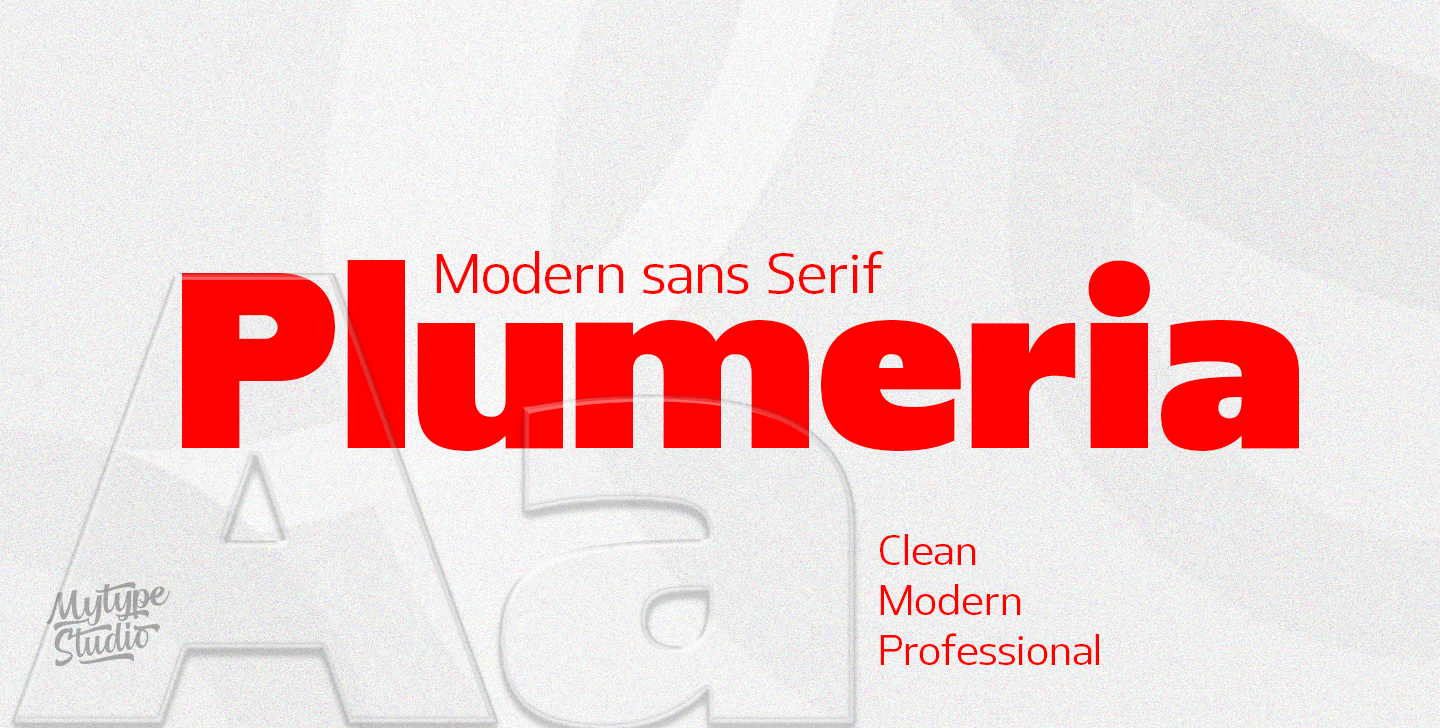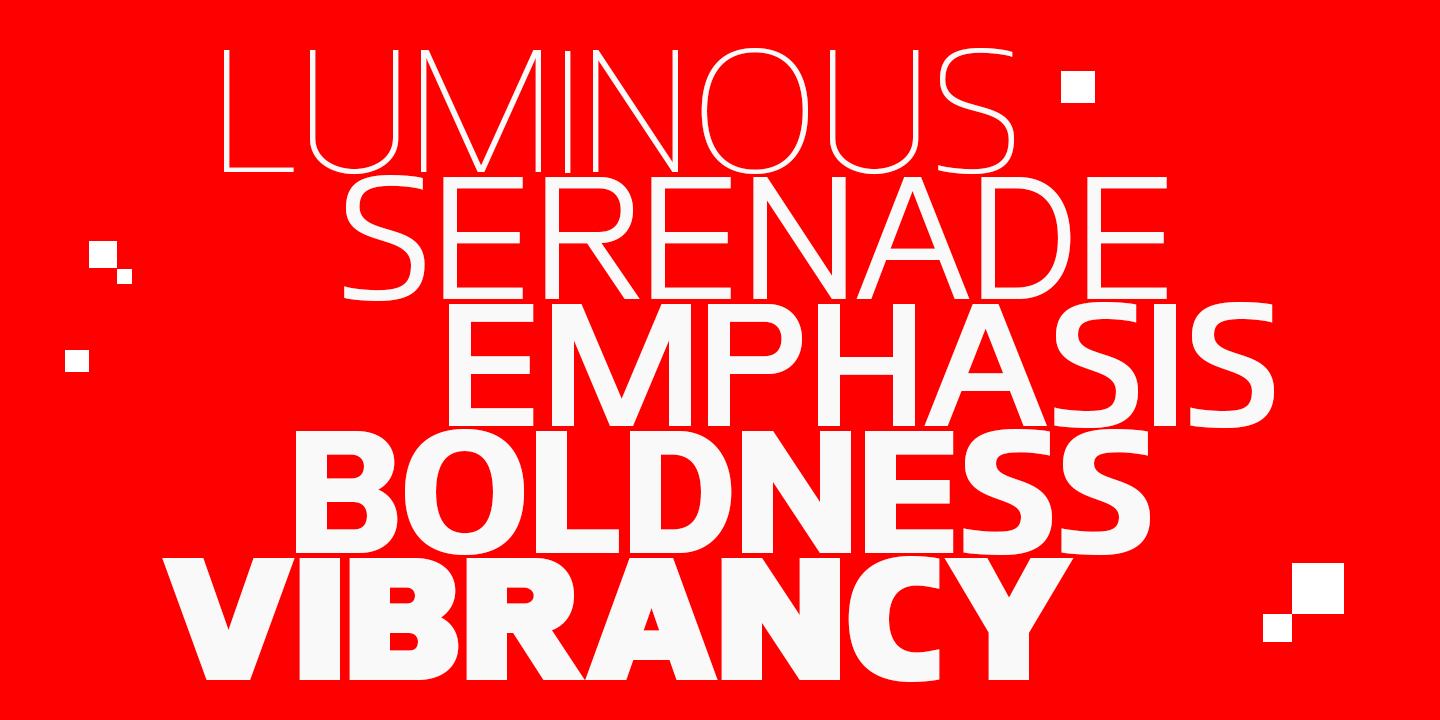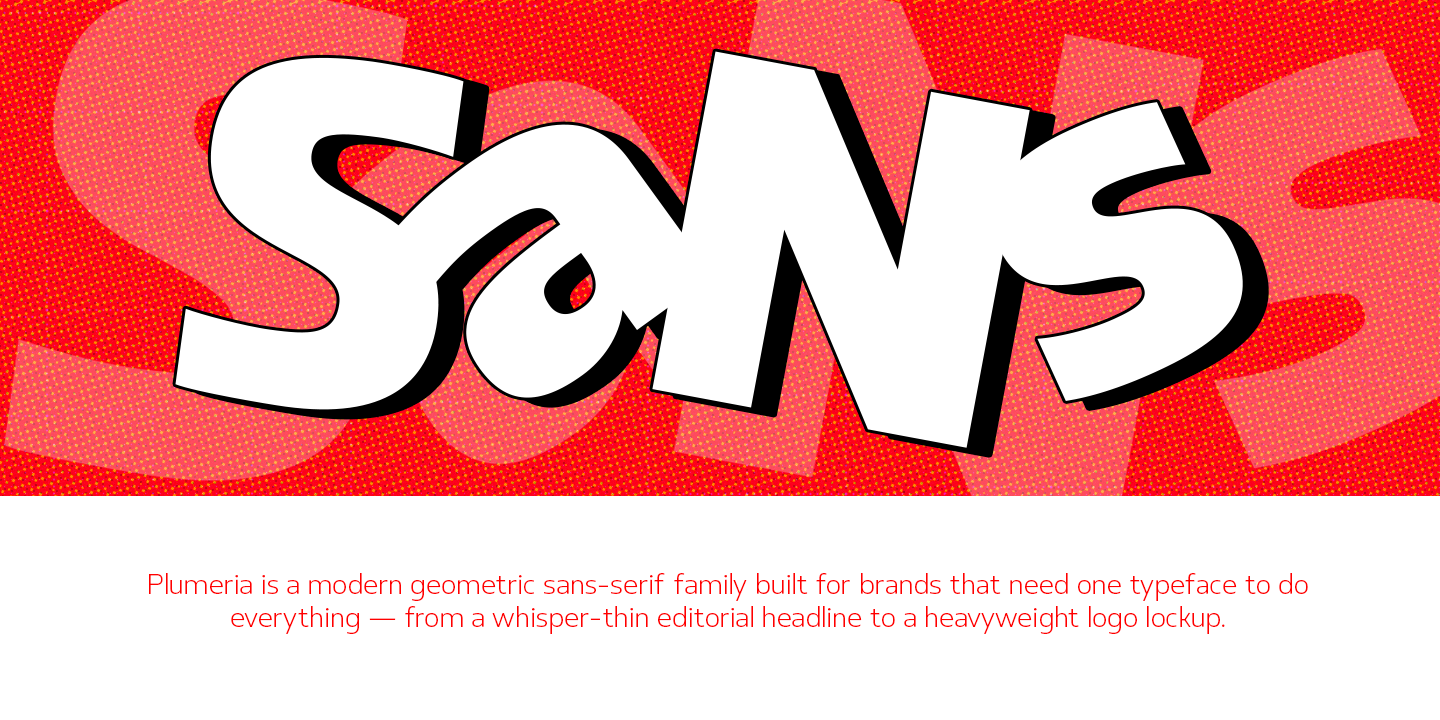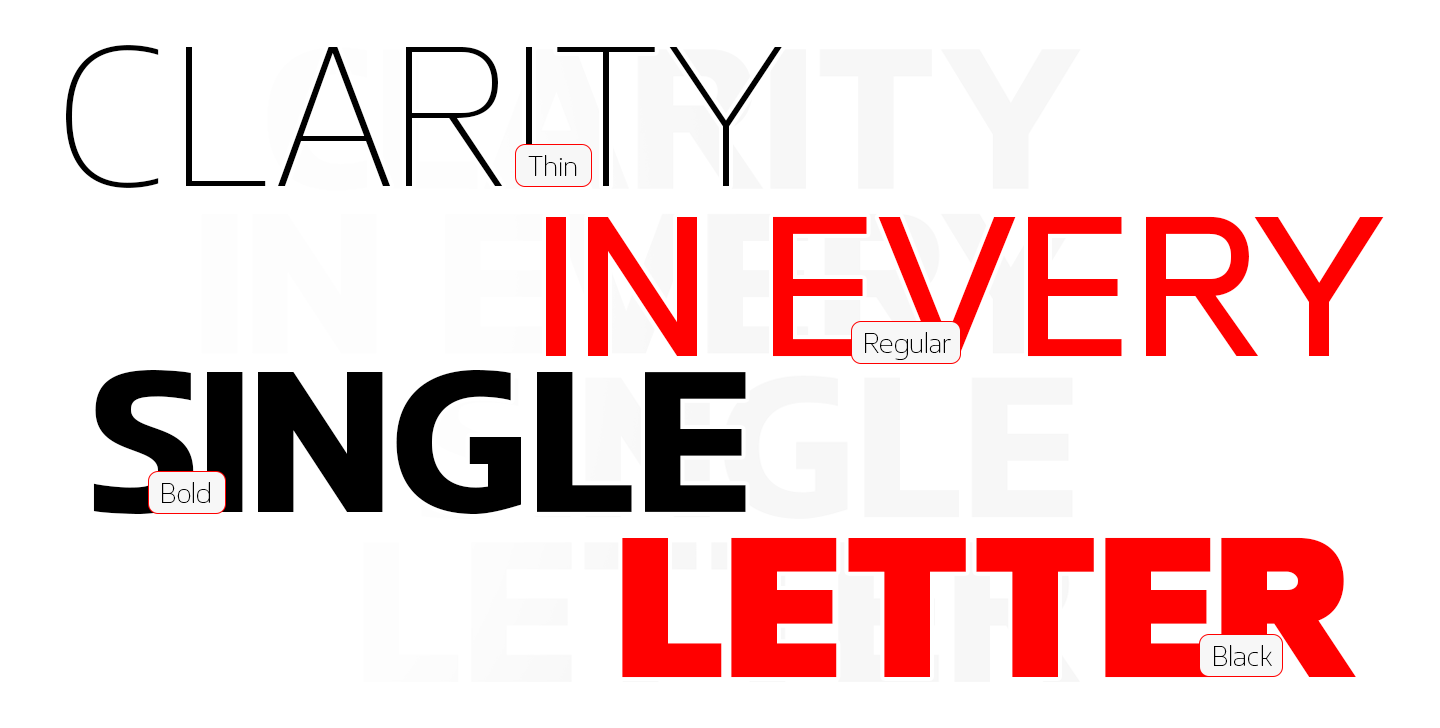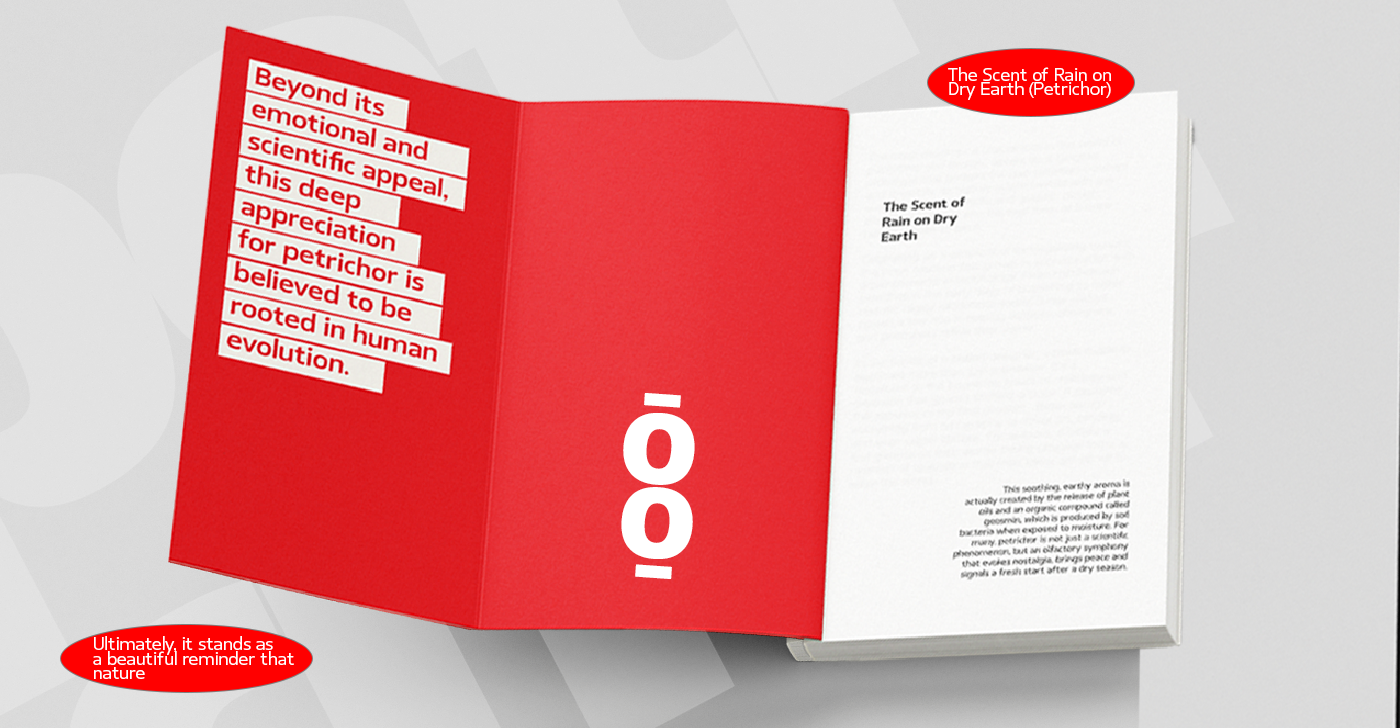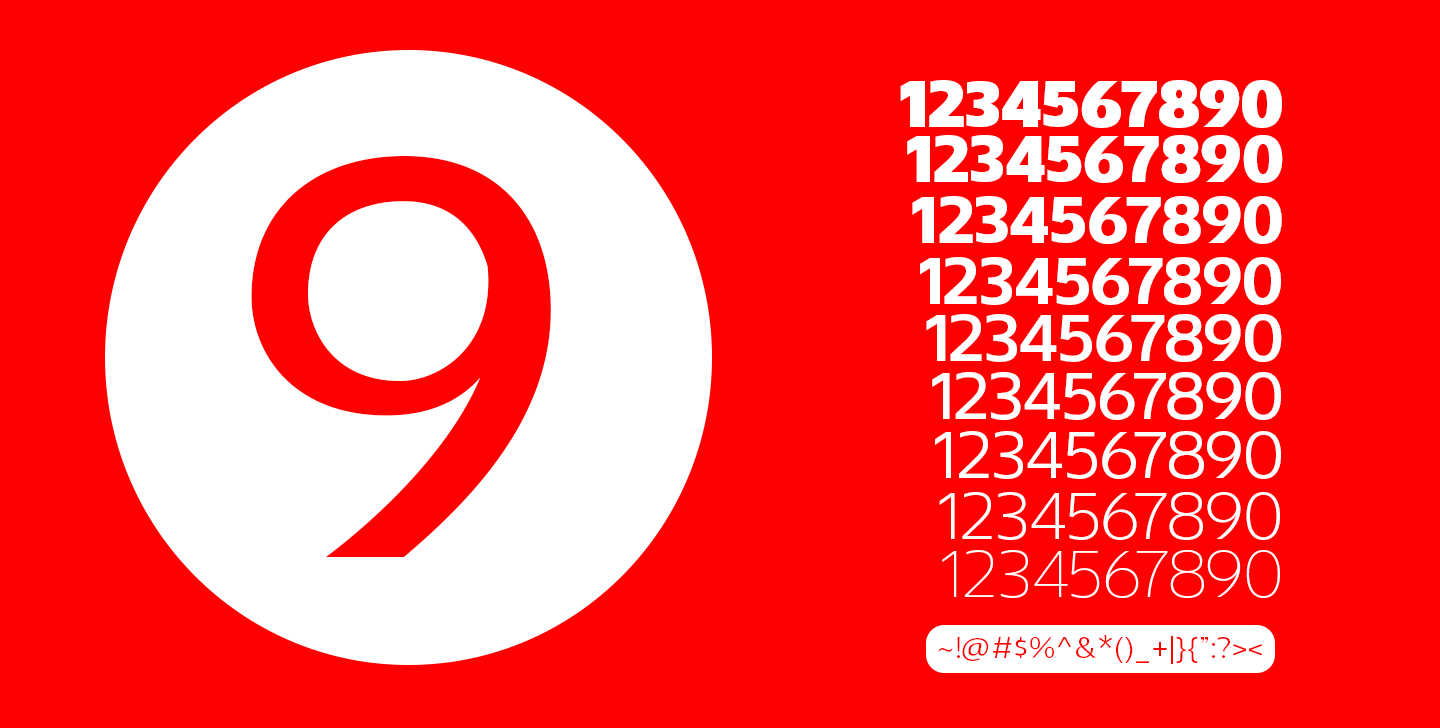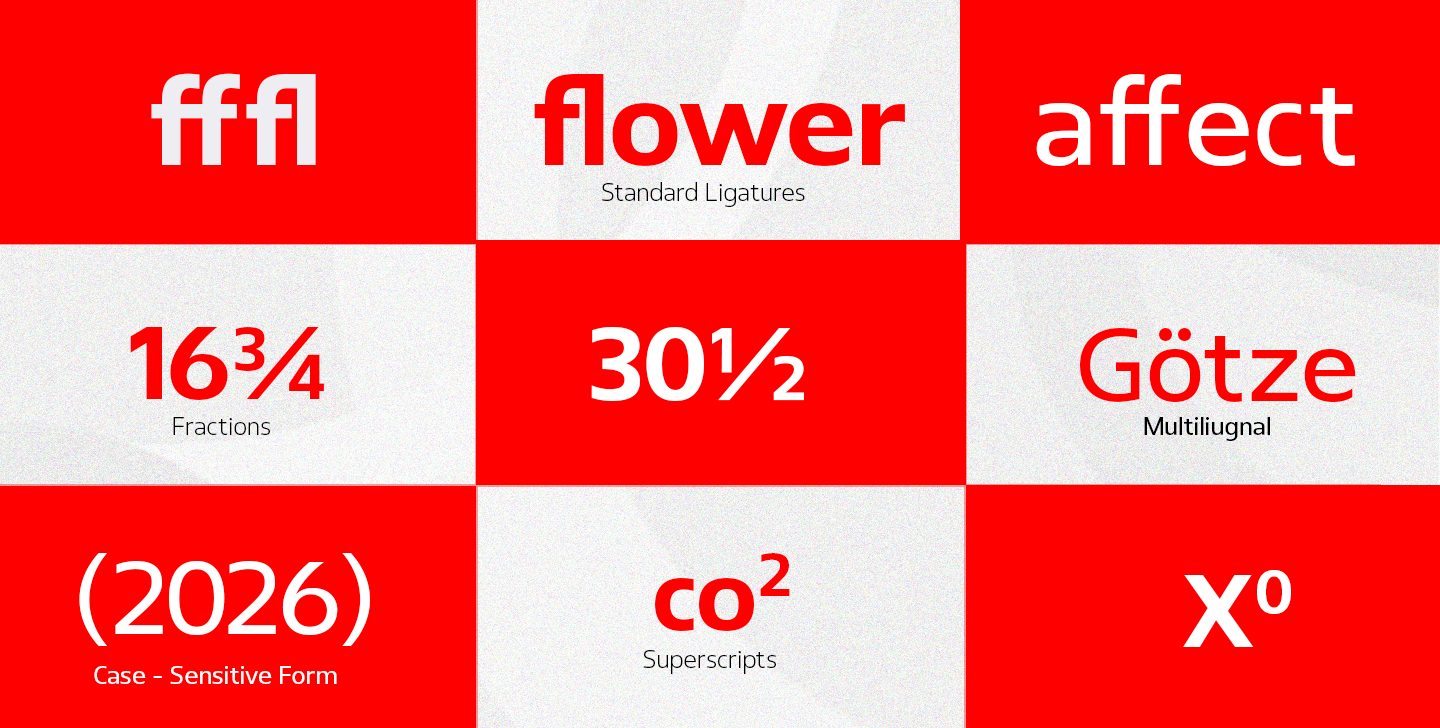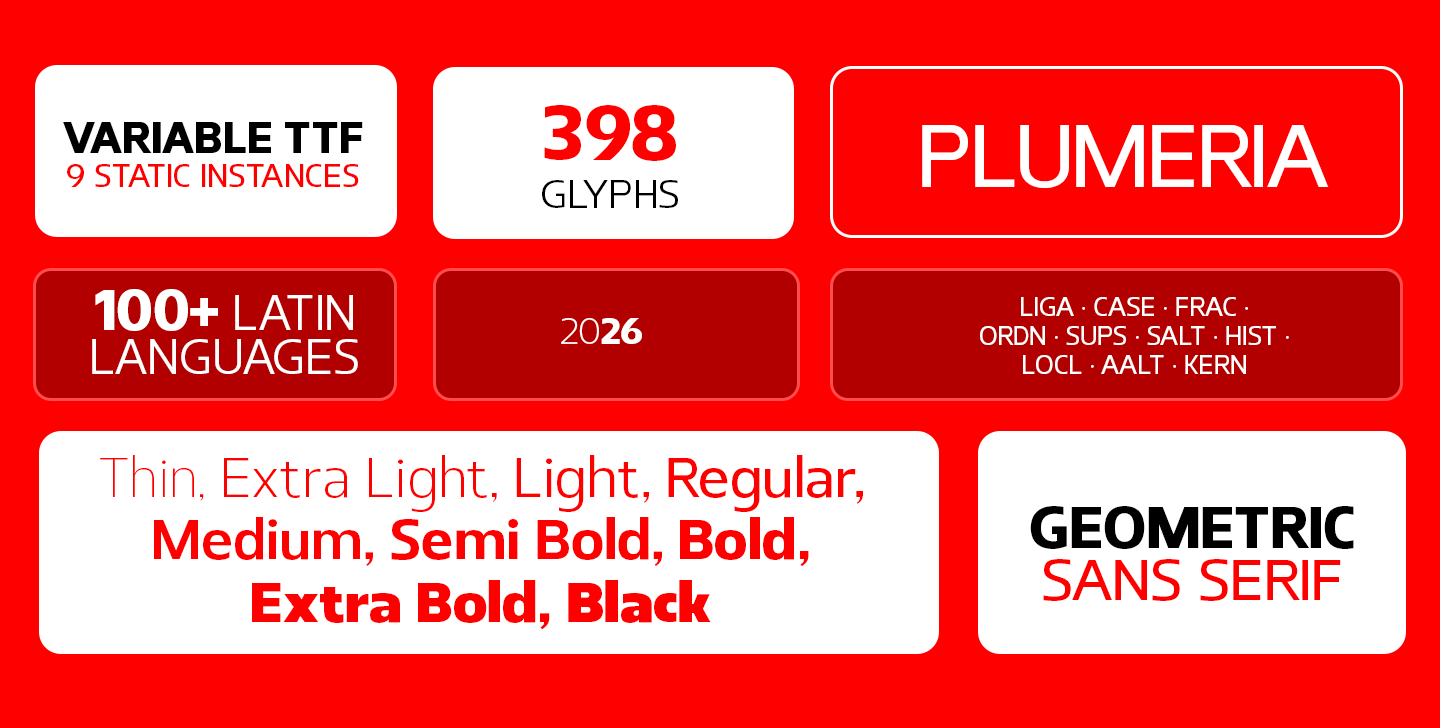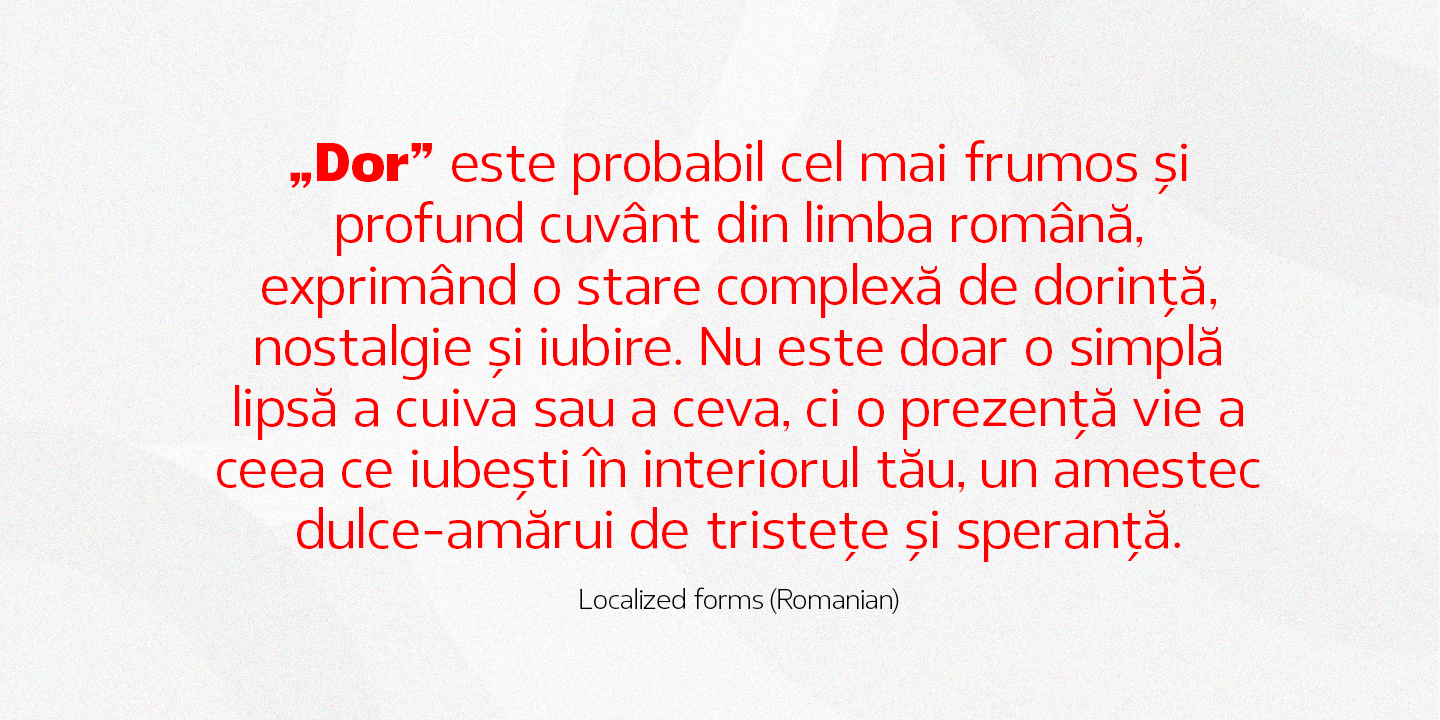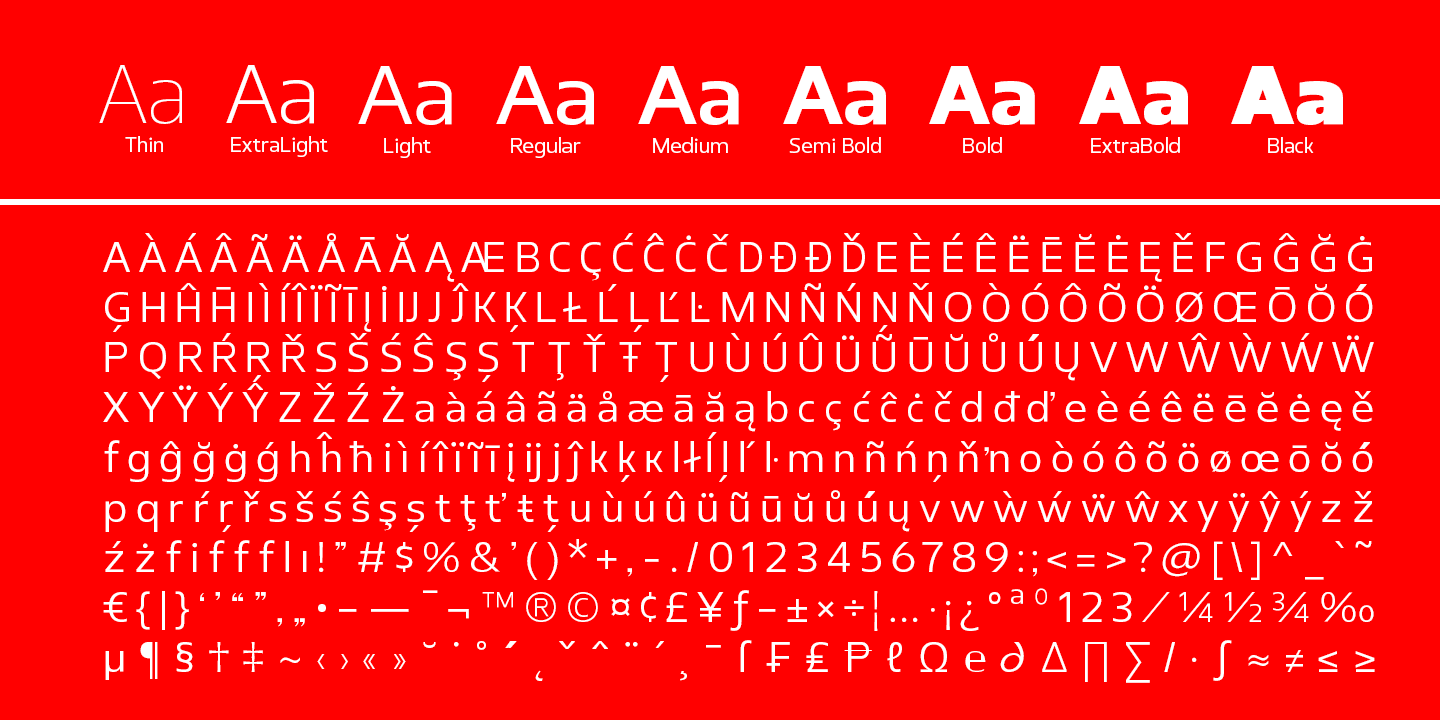
Plumeria
sans-serif — 9 Styles
About this Typeface
Plumeria is a modern sans serif built to be the workhorse of your design system. With 9 weights spanning hairline Thin to a commanding Black, it moves effortlessly from delicate editorial headlines to bold packaging and punchy social media graphics — no font-pairing headaches, no mixing families. The design balances geometric precision with soft, humanist warmth. The result feels contemporary and confident, never cold. A tall x-height and carefully tuned spacing keep it crisp at small sizes, while the extreme weights give your headlines instant presence.